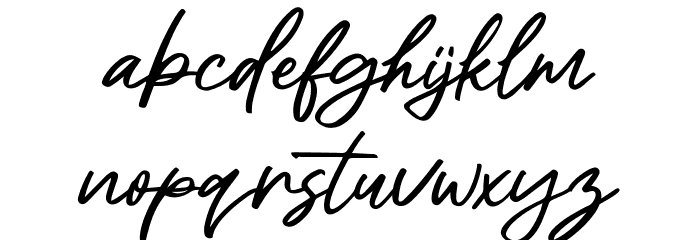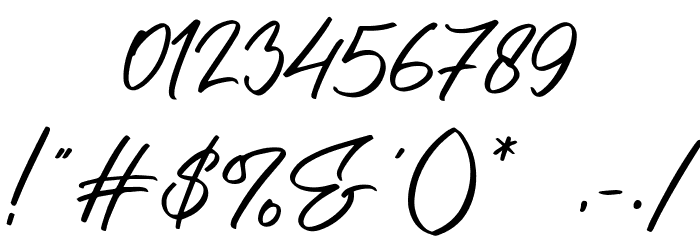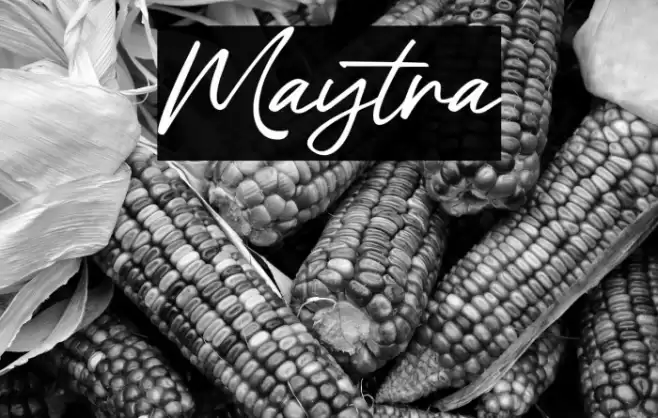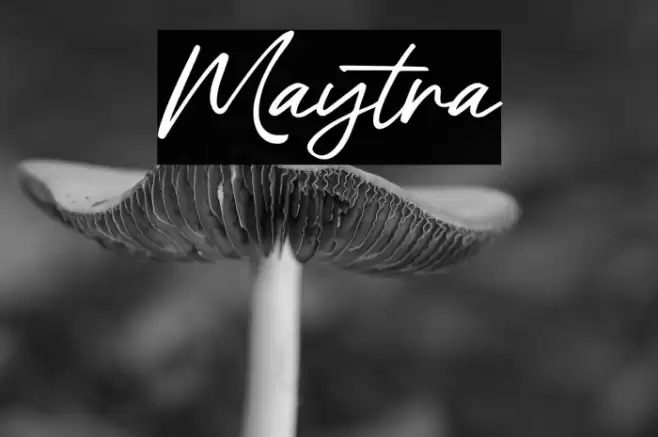
Maytra Font
This font features a fluid, handwritten style that exudes elegance and personality. The characters are connected with smooth, flowing strokes, giving it a natural and organic feel. The uppercase letters are slightly larger and more pronounced, while the lowercase letters maintain a consistent and harmonious appearance. The numbers and special characters are crafted with the same attention to detail, ensuring a cohesive look throughout. This font is perfect for adding a personal touch to any project, with its stylish and sophisticated design.
A fluid, handwritten font with elegant, connected strokes.
- Proposed Projects: Ideal for wedding invitations, personal branding, greeting cards, and social media graphics.
- Overall Style: Elegant and Personal
- Use Case: Logos, Invitations, Social Media